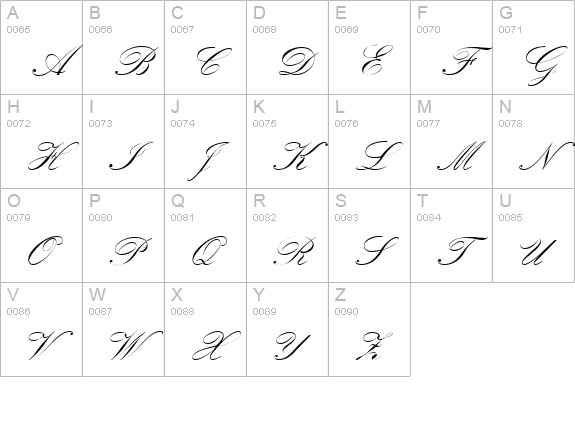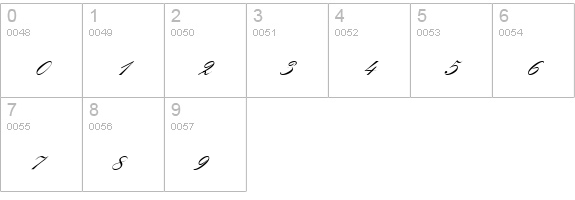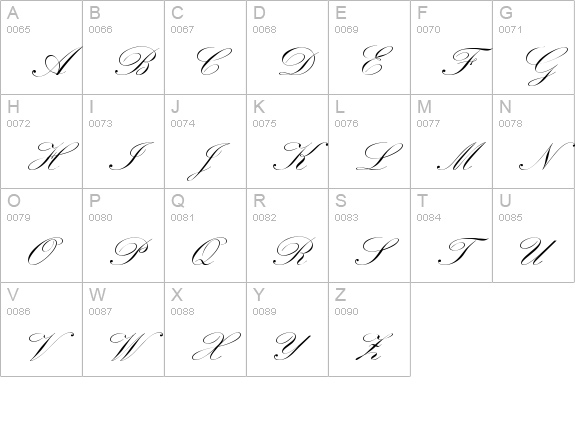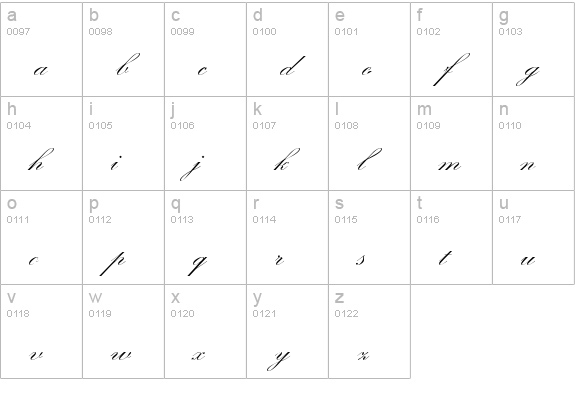
KremlinScriptOne-Regular is the standard, neutral variant in the KremlinScriptOne typeface family \xE2\x80\x94 well suited to general body text, paragraphs, and standard typographic work.
KremlinScriptOne-Regular font is a stylish and elegant typeface that exudes sophistication and charm. With its graceful curves and intricate details, this font is perfect for adding a touch of class to any project. Whether you're designing invitations, posters, or branding materials, KremlinScriptOne-Regular font will make your text stand out and leave a lasting impression. Best of all, KremlinScriptOne-Regular font is completely free to download at FontsMarket.com. This means you can elevate your designs without breaking the bank. Don't miss out on this opportunity to enhance your projects with the beauty of KremlinScriptOne-Regular font. Download it today and start creating stunning visuals that captivate your audience.